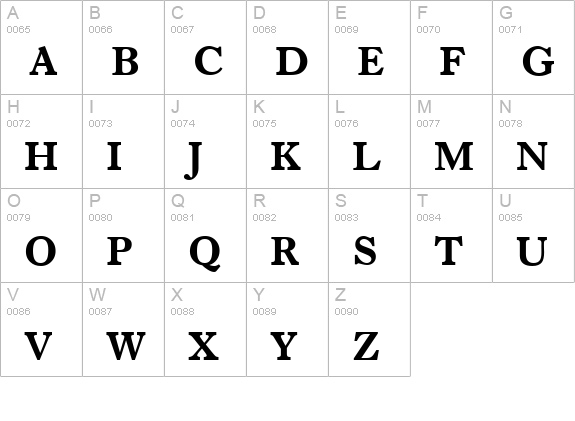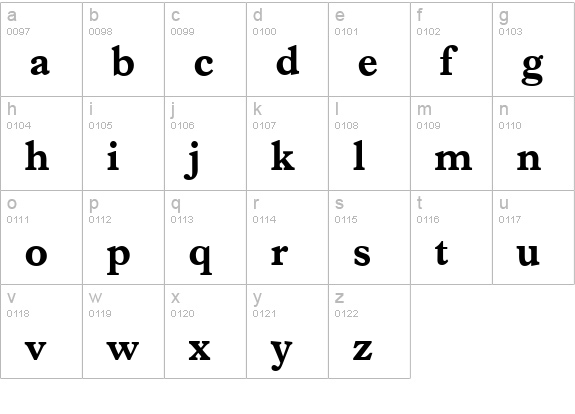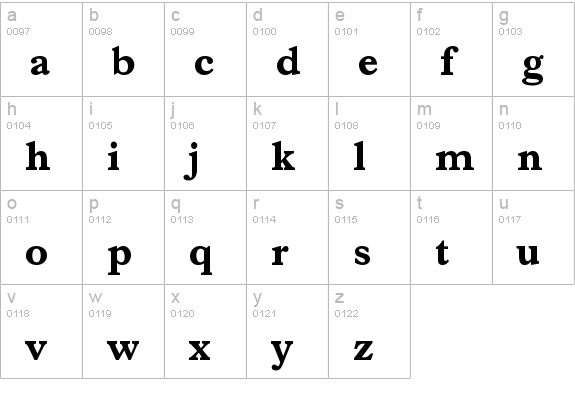
I771-Roman-Bold Font Details
I771-Roman-Bold is a strong, high-contrast variant in the I771 typeface family \xE2\x80\x94 well suited to headlines, attention-grabbing titles, and strong calls-to-action.
I771-Roman-Bold is a classic and elegant font that exudes sophistication and authority. Its bold strokes and clean lines make it perfect for projects that require a strong and impactful appearance. This font is versatile and can be used for a variety of design purposes, from headings and titles to logos and branding. What makes I771-Roman-Bold even better is that it is available for free download at FontsMarket.com. This means you can easily access this high-quality font without any cost, making it a great choice for both personal and commercial projects. Don't miss out on the opportunity to enhance your designs with the timeless beauty of I771-Roman-Bold font today!